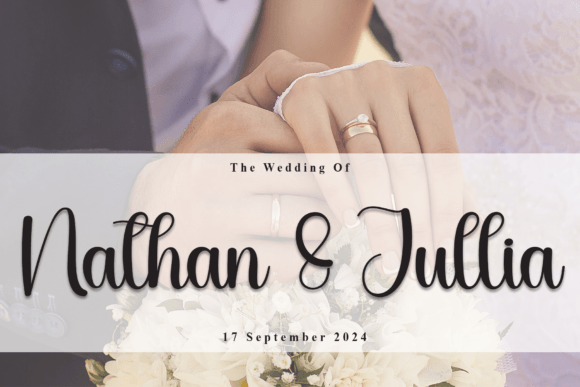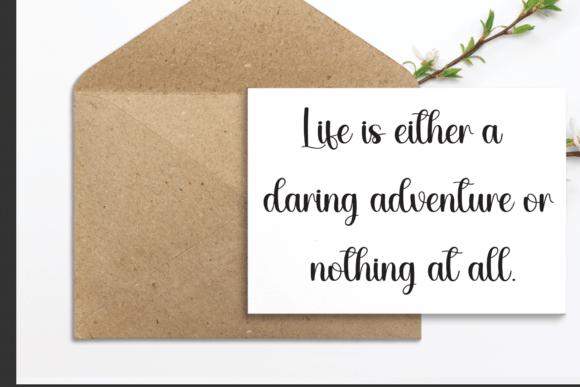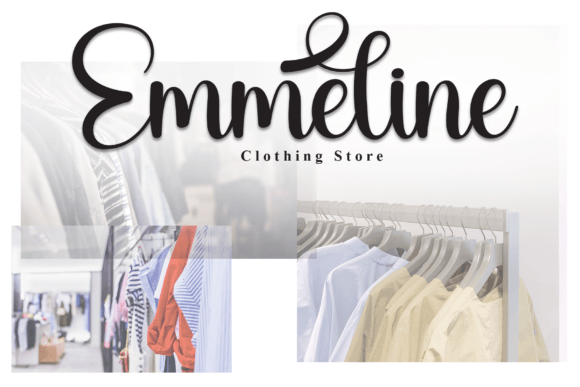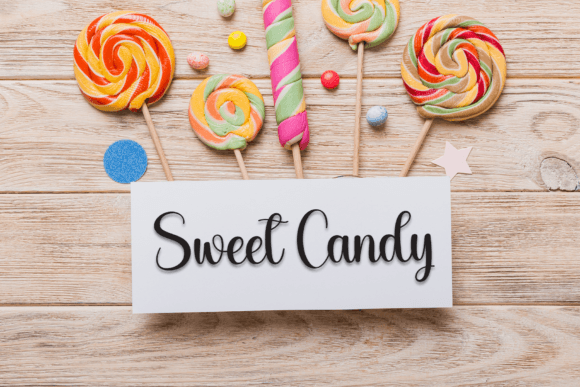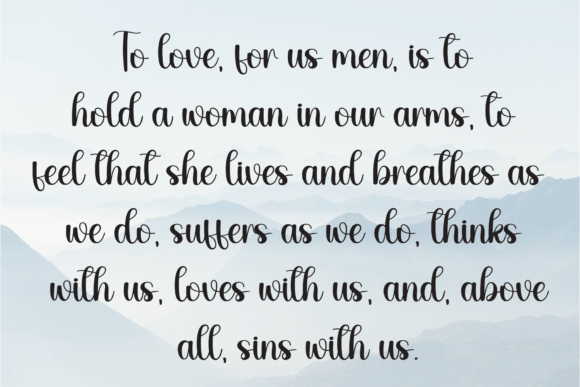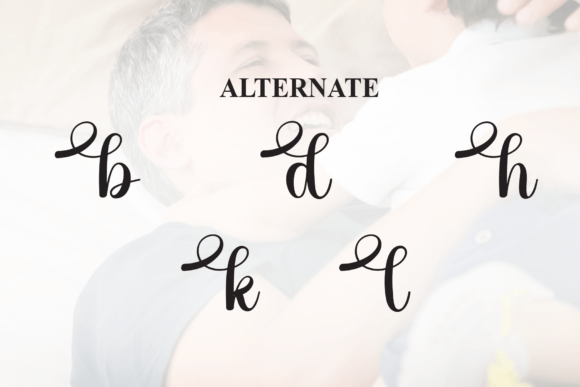
Daddy Font: Elevate Your Designs with Elegance and Timeless Style
Are you on the hunt for a font that exudes elegance, sophistication, and a touch of timeless charm? Look no further than the Daddy Font, a stunning flowing handwritten font that is sure to capture your heart. With its incredibly distinct and classic style, this font is perfect for designers and crafters looking to add a touch of luxury to their favorite projects.
What is Daddy Font?
Daddy Font is a beautifully crafted handwritten font that boasts an elegant touch, making it ideal for a wide range of design applications. Whether you’re working on a logo, branding materials, social media graphics, or even a website, this font is sure to make a lasting impression. Its flowing script and classic style evoke a sense of nostalgia and sophistication, making it perfect for designers who want to create spectacular designs that stand out from the crowd.
Key Features of Daddy Font
- Elegant and Timeless Style: Daddy Font features a unique and classic style that is sure to add a touch of sophistication to any design.
- Flowing Handwritten Script: The font’s flowing script gives it a natural and effortless feel, making it perfect for creating beautiful and elegant designs.
- Highly Versatile: Daddy Font can be used for a wide range of design applications, from logos and branding materials to social media graphics and websites.
- Easy to Read: Despite its elegant and cursive style, Daddy Font is highly legible, making it perfect for body text and headlines.
Why Choose Daddy Font?
With so many fonts available, why choose Daddy Font for your next design project? Here are just a few reasons why this font stands out from the rest:
- Unique and Distinctive: Daddy Font features a truly unique and distinctive style that will set your designs apart from the crowd.
- High-Quality Design: The font is carefully crafted with attention to detail, ensuring a high-quality design that will elevate your projects.
- Timeless Appeal: The font’s classic style ensures that it will remain timeless and relevant for years to come.
Design Ideas with Daddy Font
Now that you’ve fallen in love with Daddy Font, here are some design ideas to get you started:
- Logo Design: Use Daddy Font to create a stunning logo that exudes elegance and sophistication.
- Wedding Invitations: Add a touch of luxury to your wedding invitations with this beautiful font.
- Branding Materials: Use Daddy Font to create consistent branding materials, such as business cards, letterheads, and brochures.
- Social Media Graphics: Create eye-catching social media graphics with Daddy Font, perfect for promoting your brand or business.
In conclusion, Daddy Font is a stunning flowing handwritten font that is sure to elevate your designs with its elegant and timeless style. With its highly versatile and easy-to-use design, this font is perfect for designers and crafters looking to add a touch of luxury to their favorite projects. So why wait? Fall in love with Daddy Font and start creating spectacular designs today!